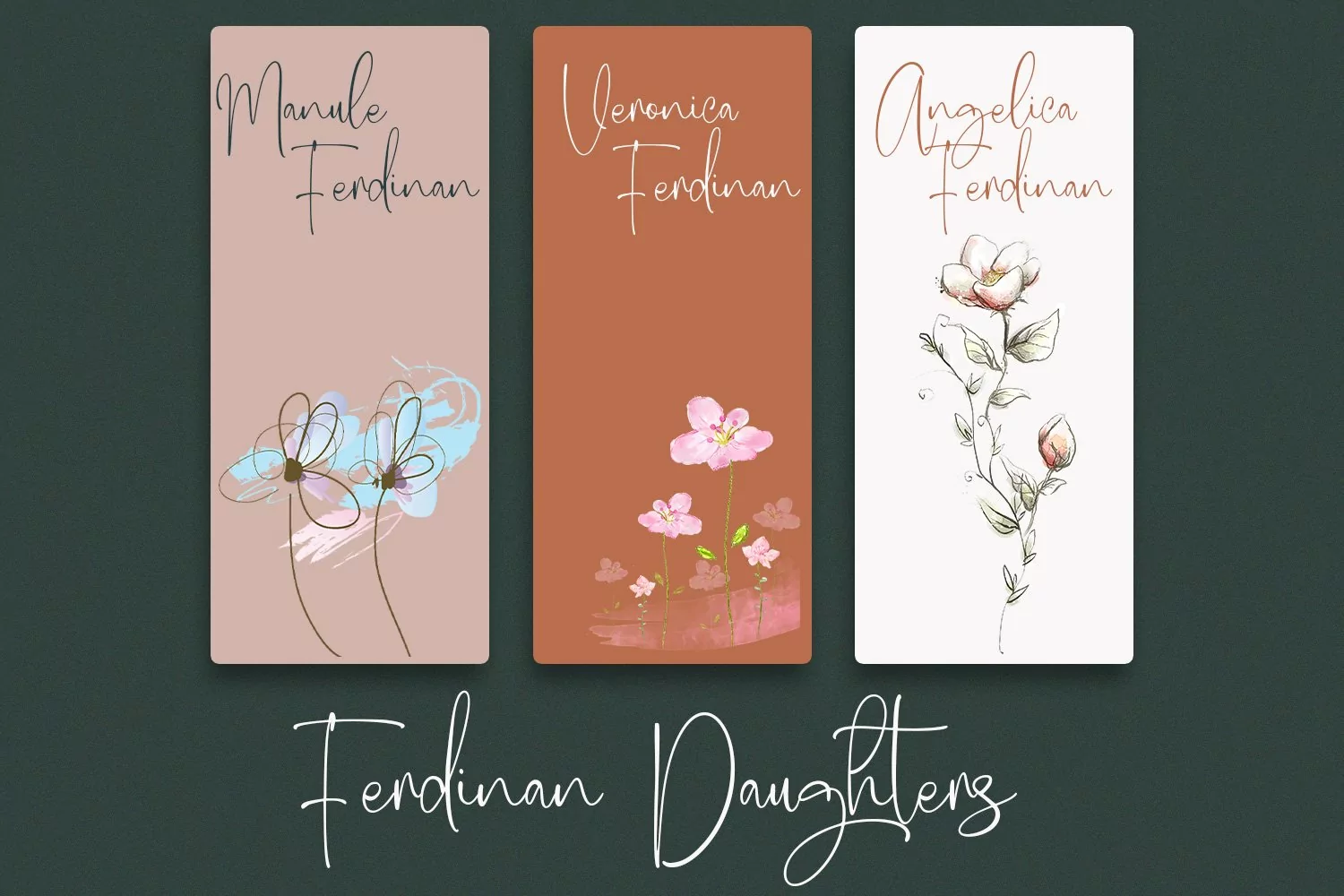
Sullivorty is a beauty modern ink-ish script font. With light contrast stroke, fun character with a bit of ligatures and alternates. To give you an extra creative work. Sullivorty font support multilingual more than 100+ language. This font is good for logo design, Social media, Movie Titles, Books Titles, a short text even a long text letter and good for your secondary text font with sans or serif. Make a stunning work with Sullivorty font.